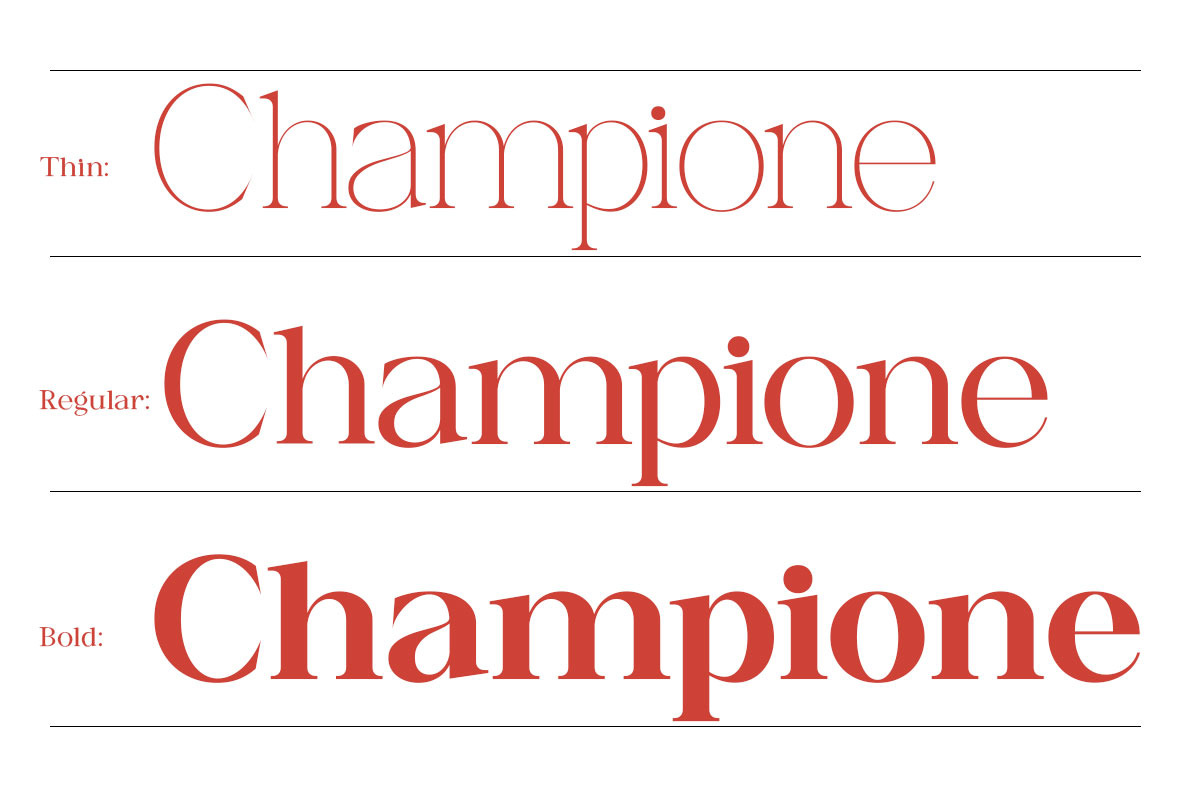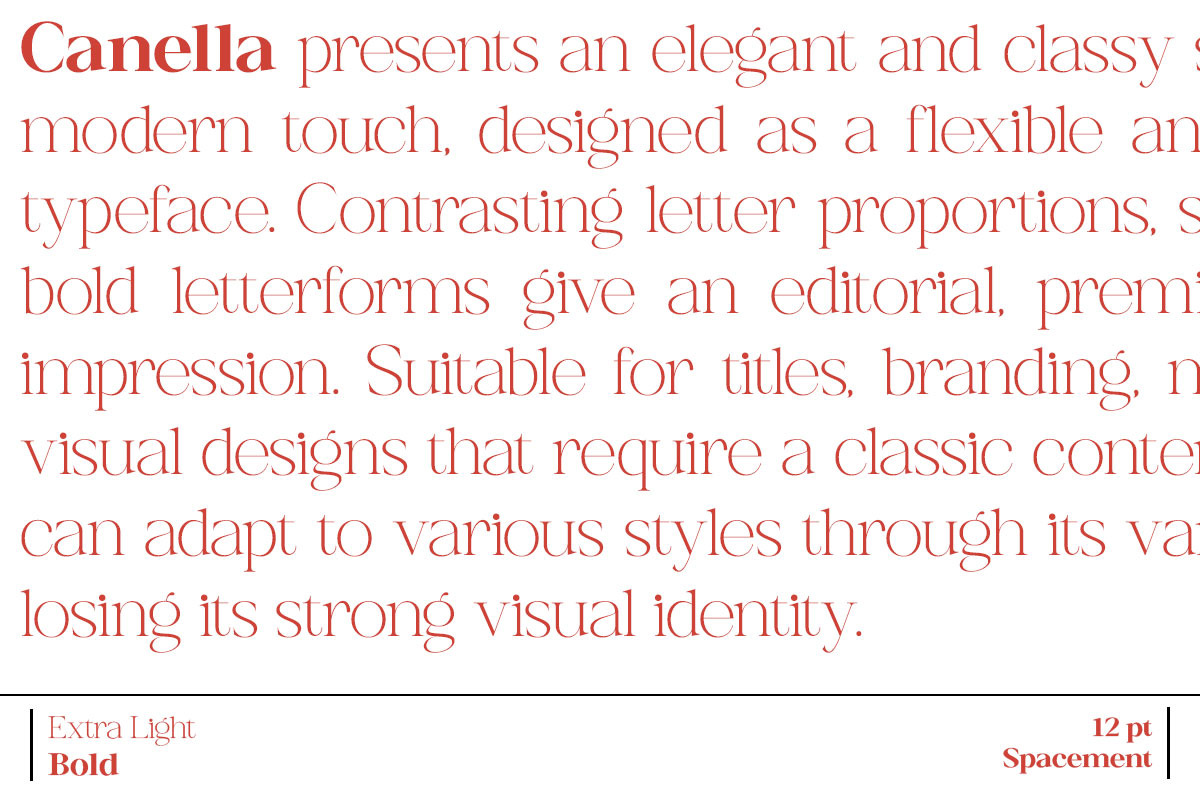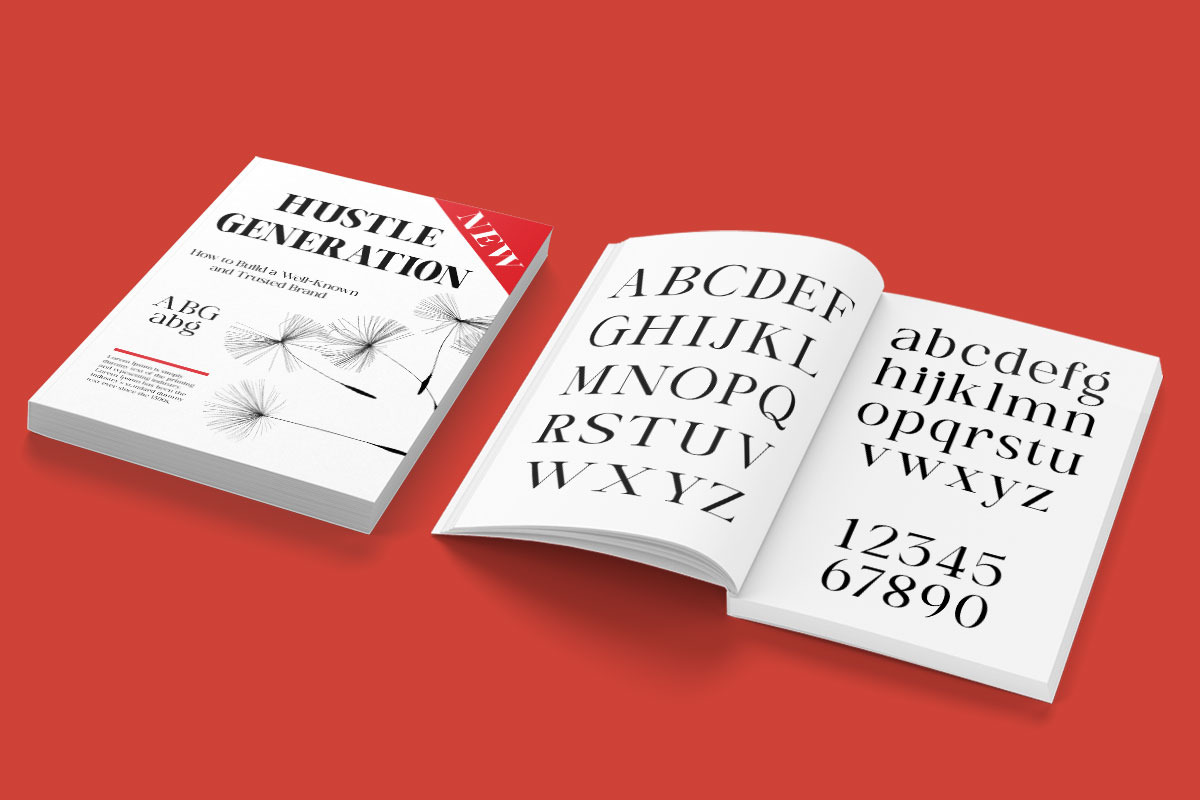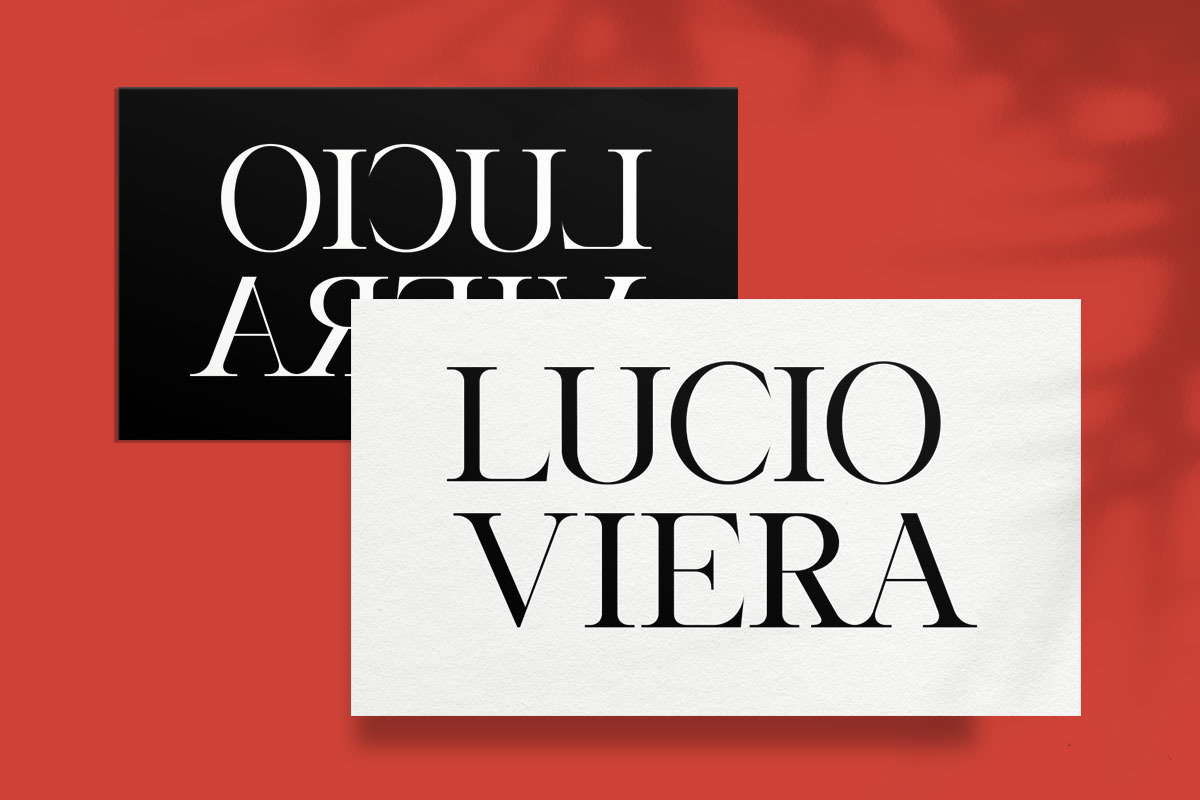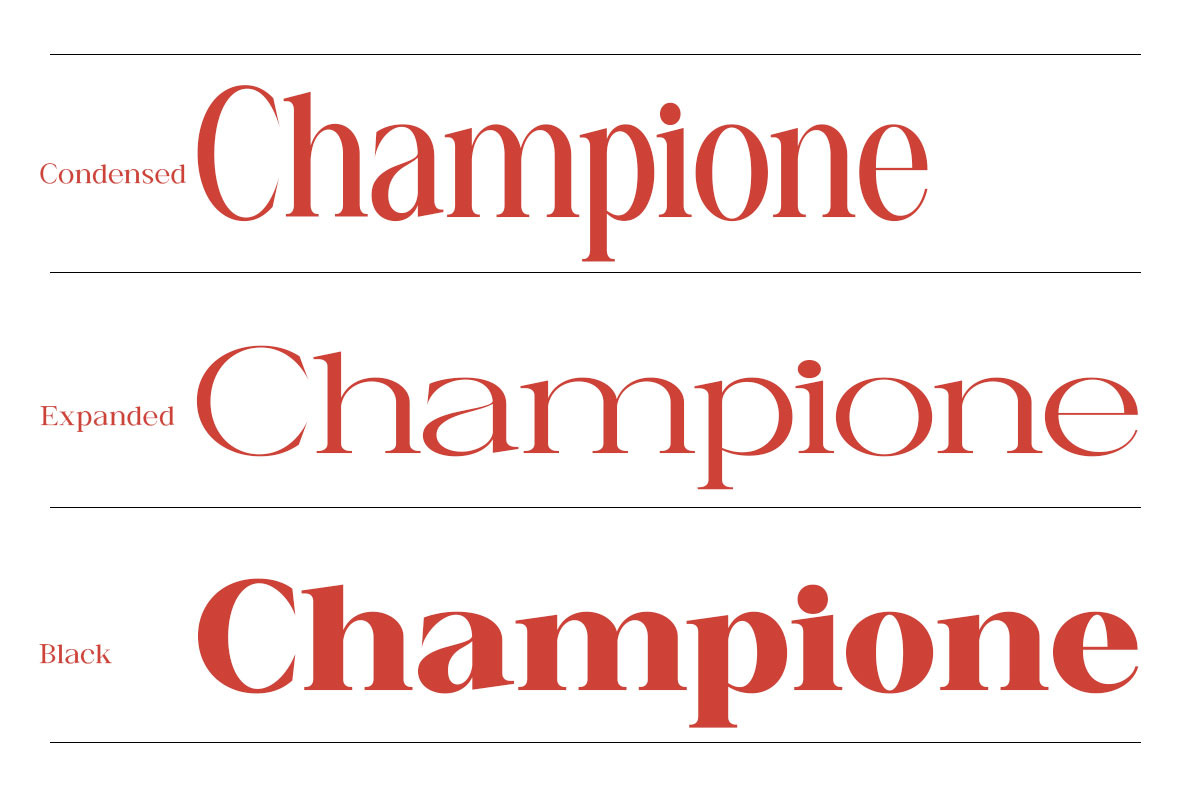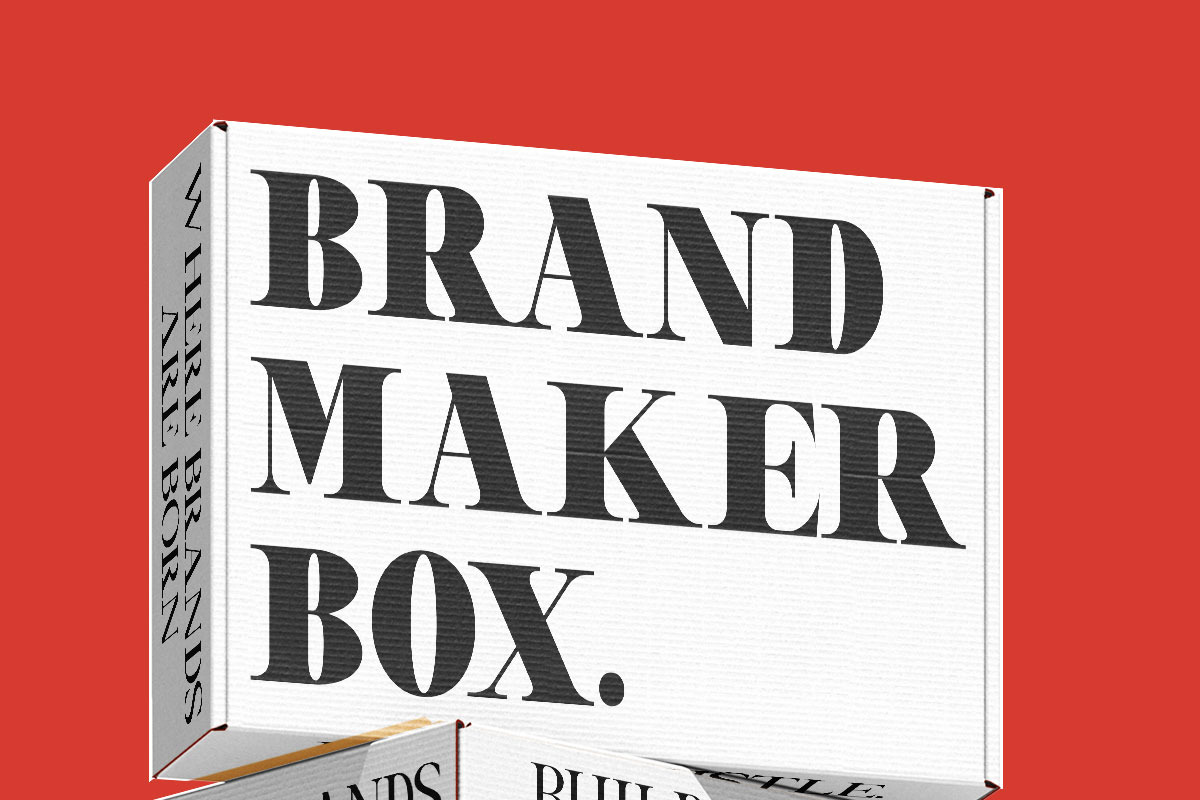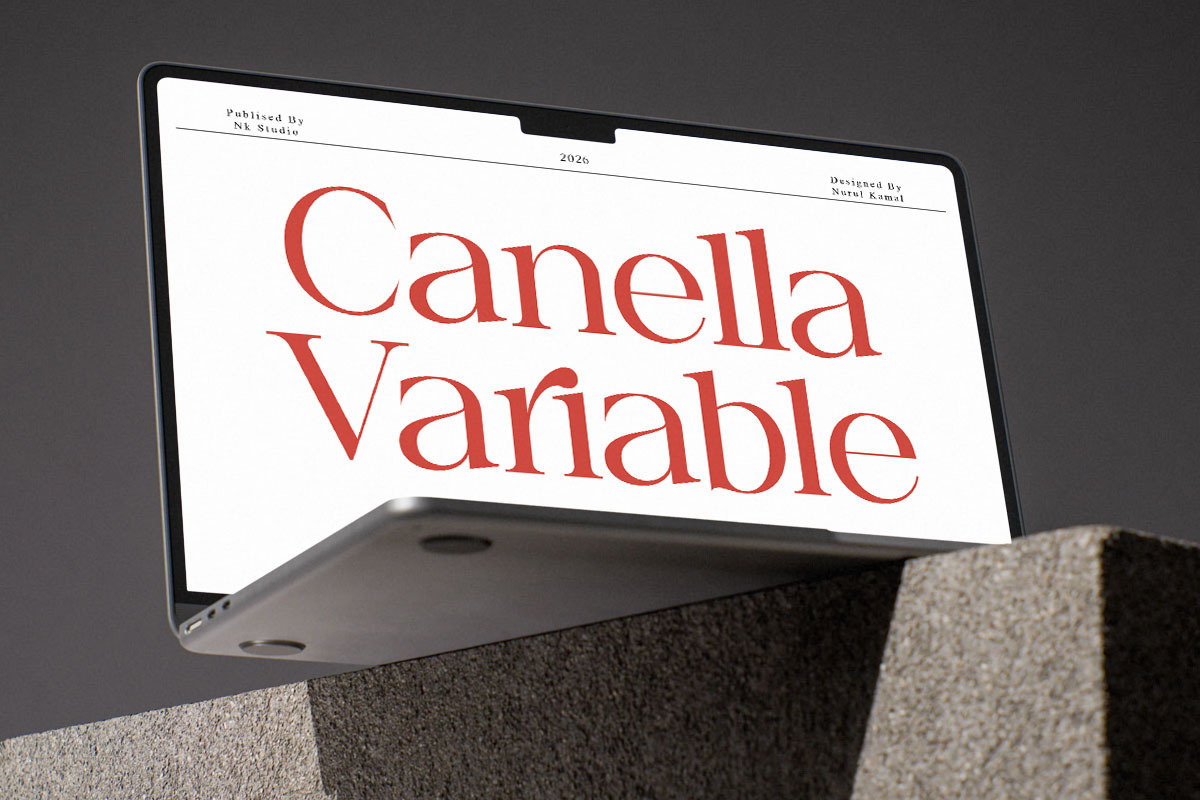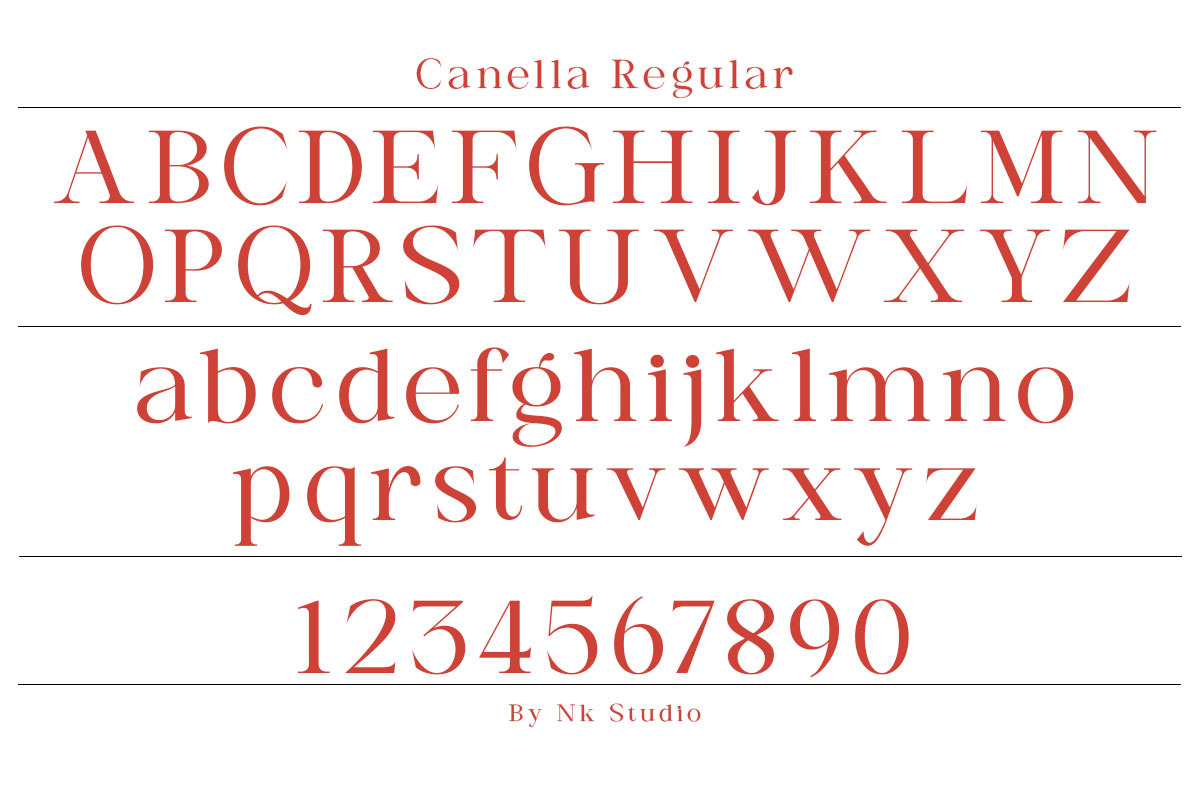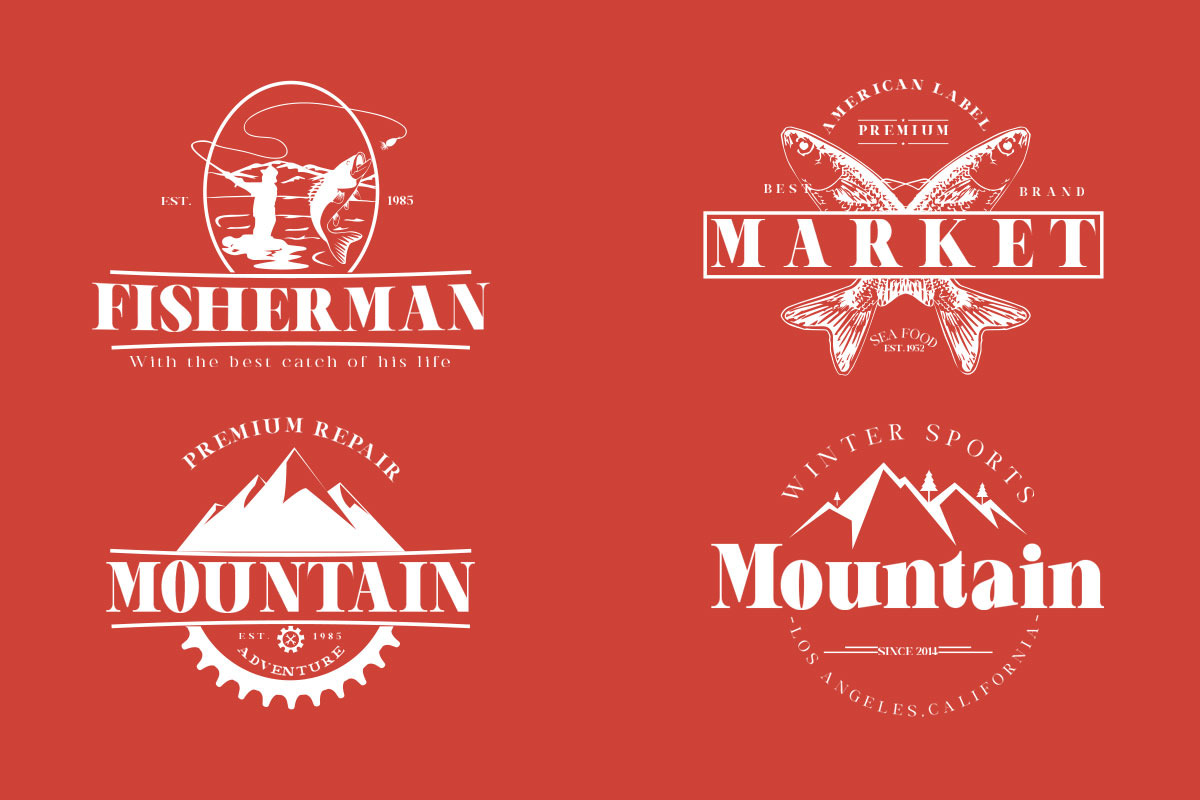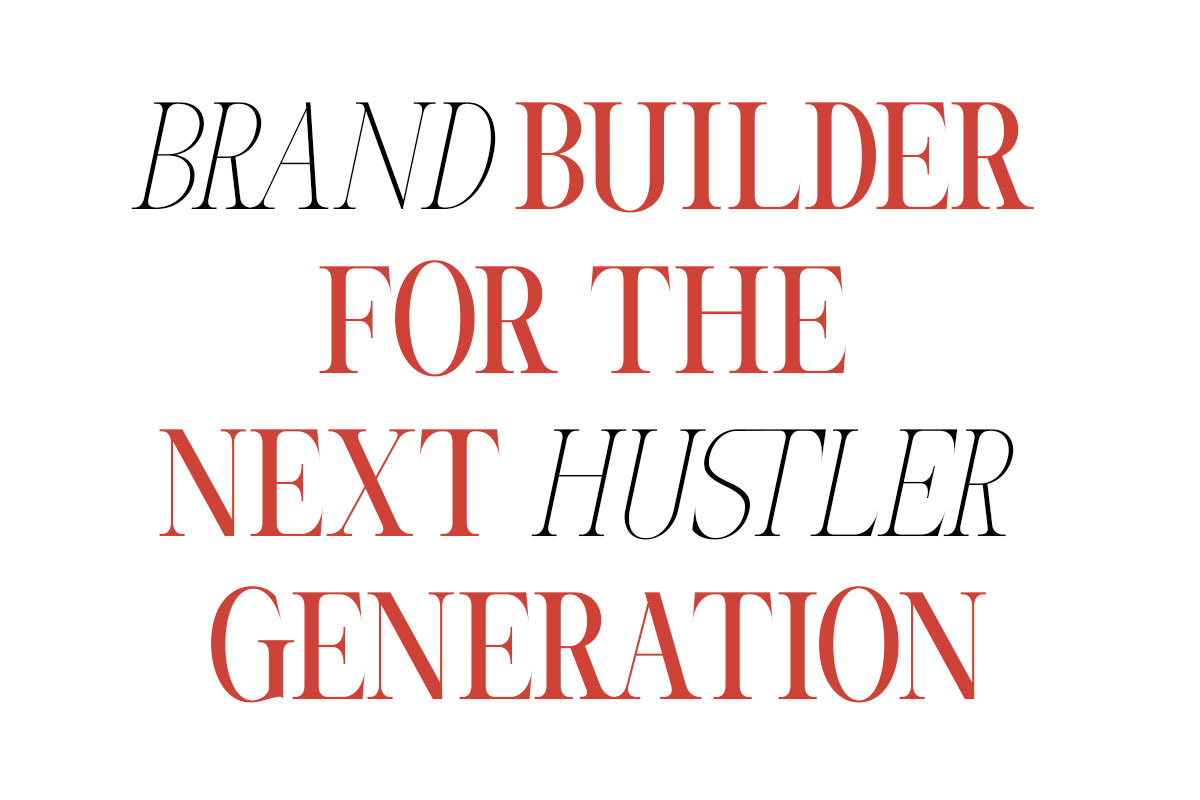
Canella
Canella Variable is an elegant serif typeface designed with strong characters, subtle contrasts, and classic, modern proportions. Every curve and detail conveys a luxurious, elegant, and professional feel—perfect for premium branding and editorial design.
This font comes with 12 styles and 55 files, including variable fonts, providing a full range of design possibilities. From subtle thinness to bold boldness, Canella Variable maintains the sophisticated beauty of serifs in every weight.
Brands & Logos
Editorial & Magazines
Premium Product Packaging
Wedding Invitations
Fashion & Luxury Design
Social Media & Display Headlines
With full character support and optimal performance for both display and headlines, Canella Variable is the perfect choice for creating a sophisticated, modern, and sophisticated look.